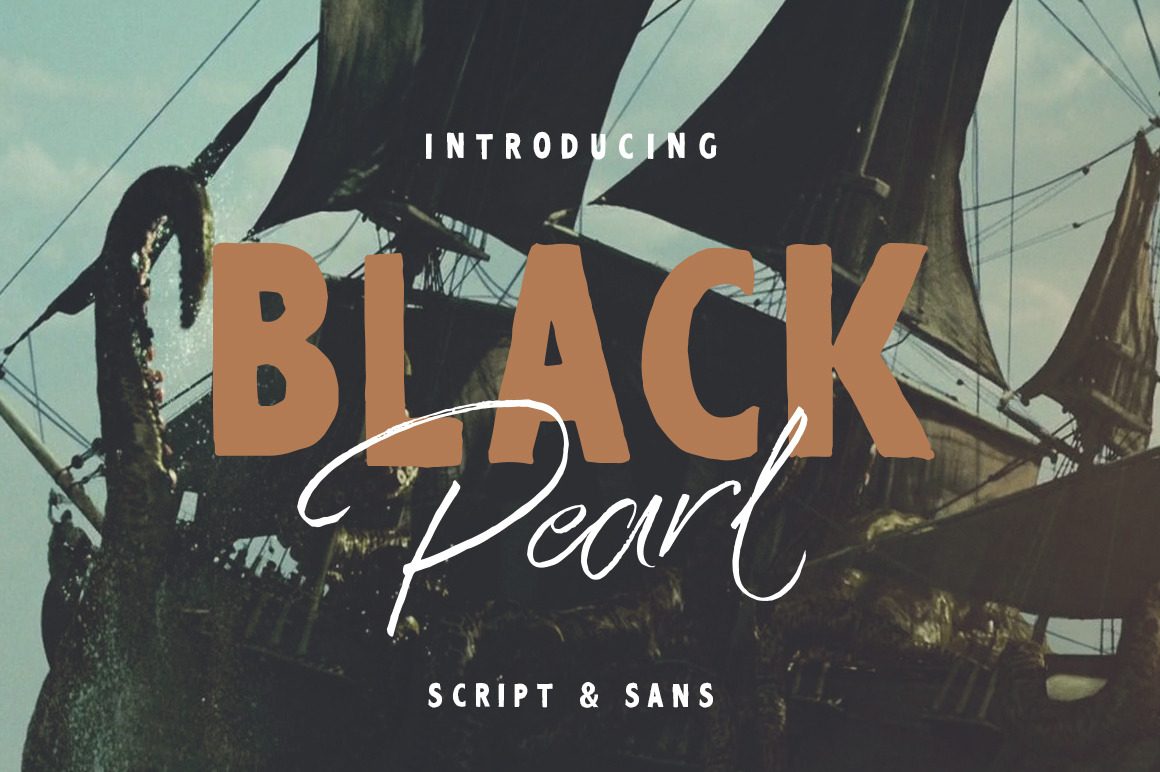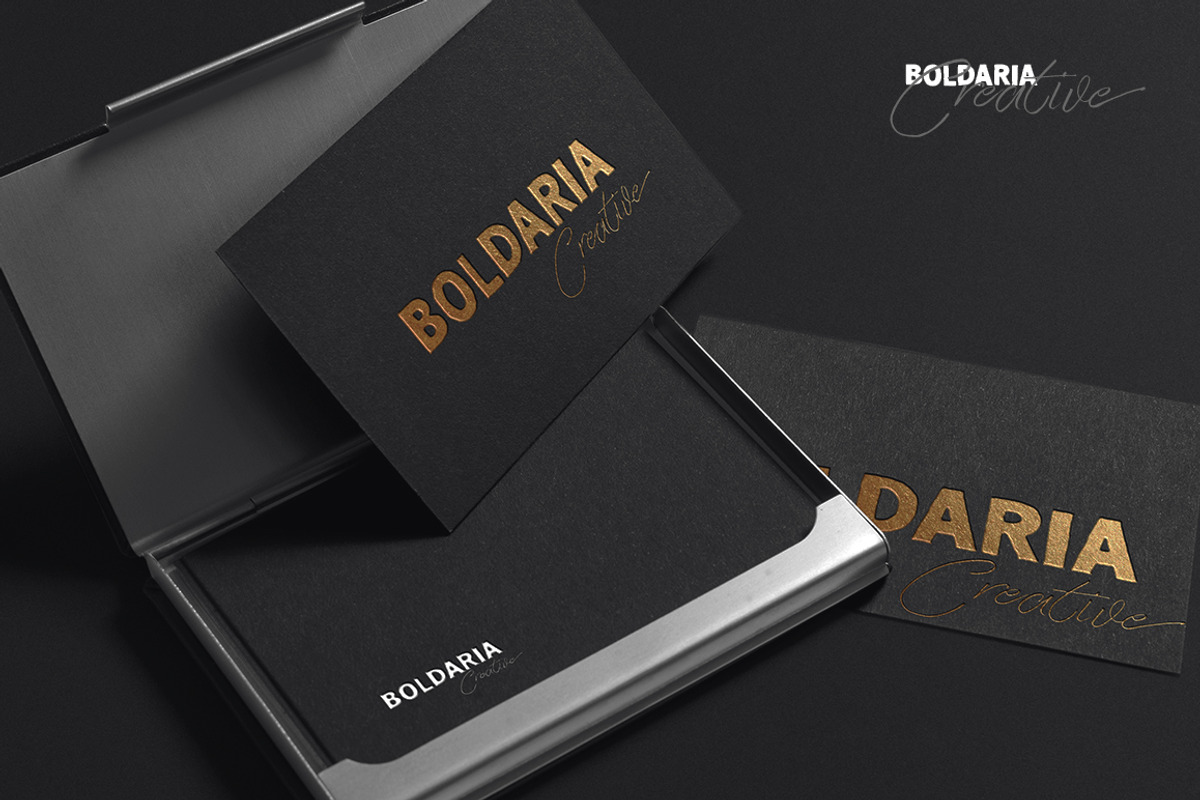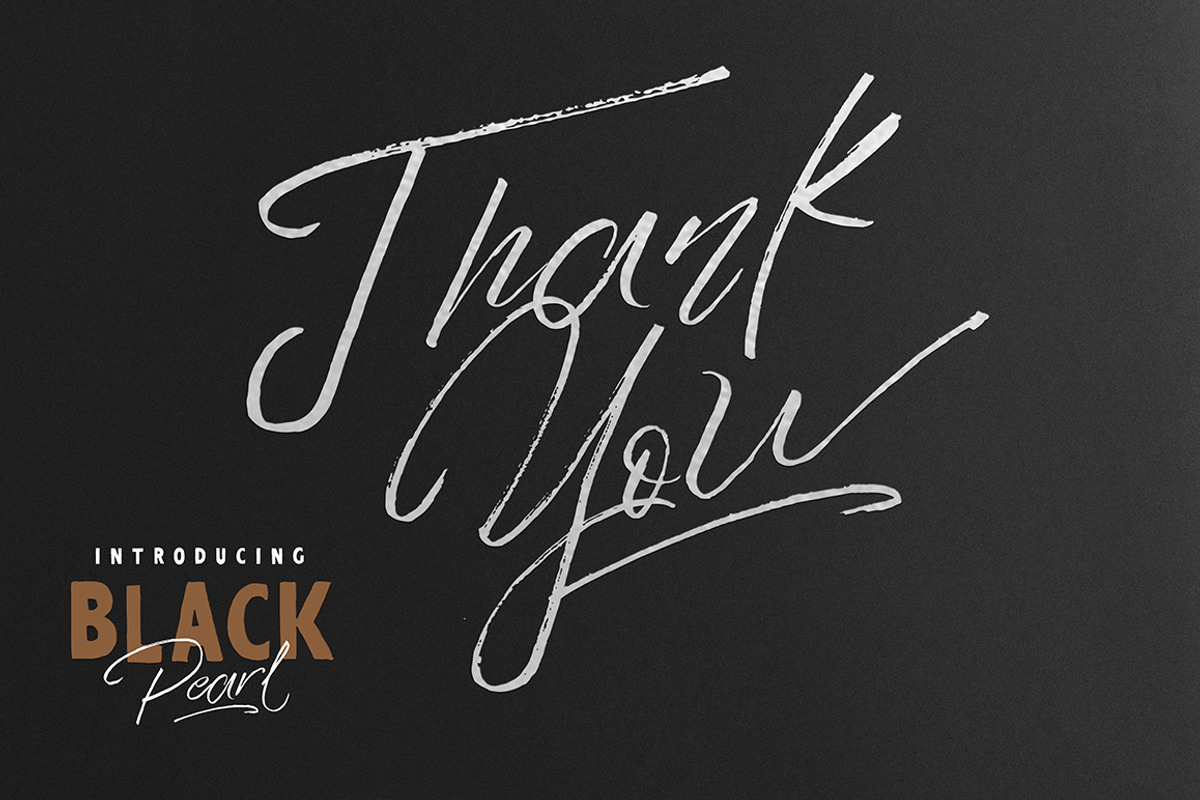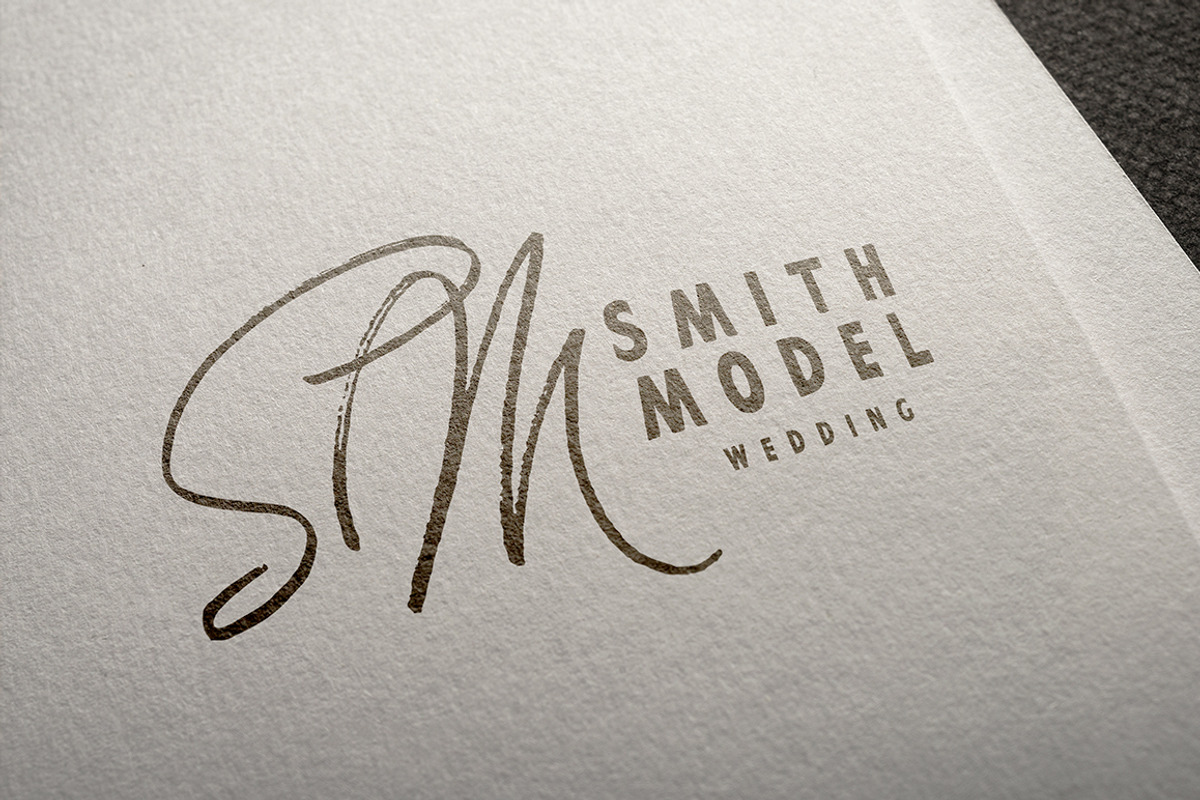
Black Pearl Font Duo + Extras
Introducing Black Pearl handwriting brush with some combination with sans. Ready used with awesome character!
- Black Pearl Script : A Rough Dry Brush Script , with a casual character, but fancy attitude. Complete with alternate and more Ligature
- Black Pearl Sans : A Rough Sans.
- Stylistic Set